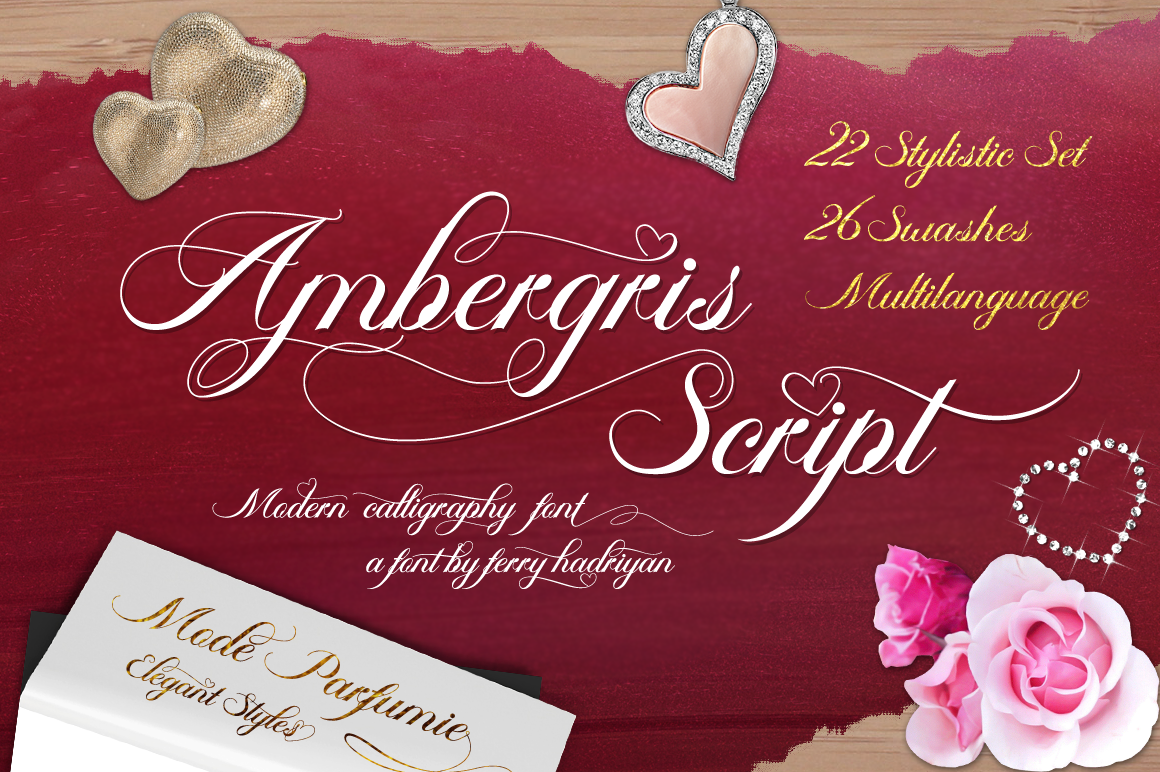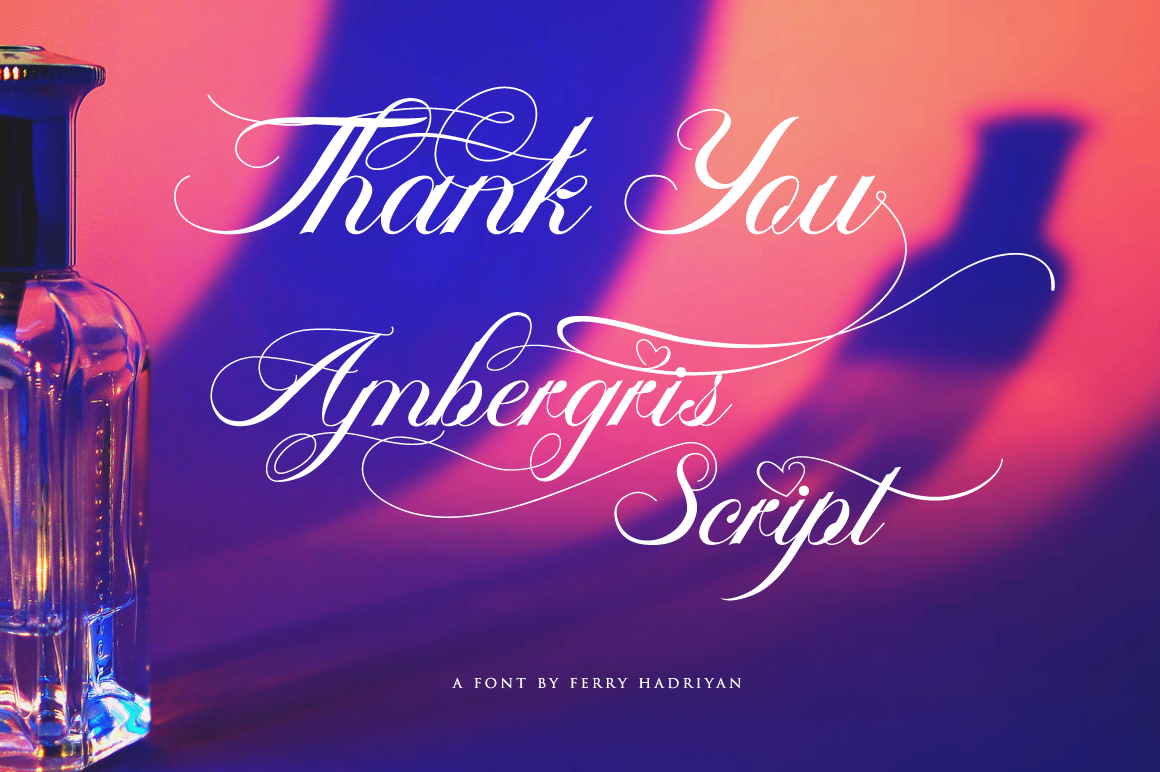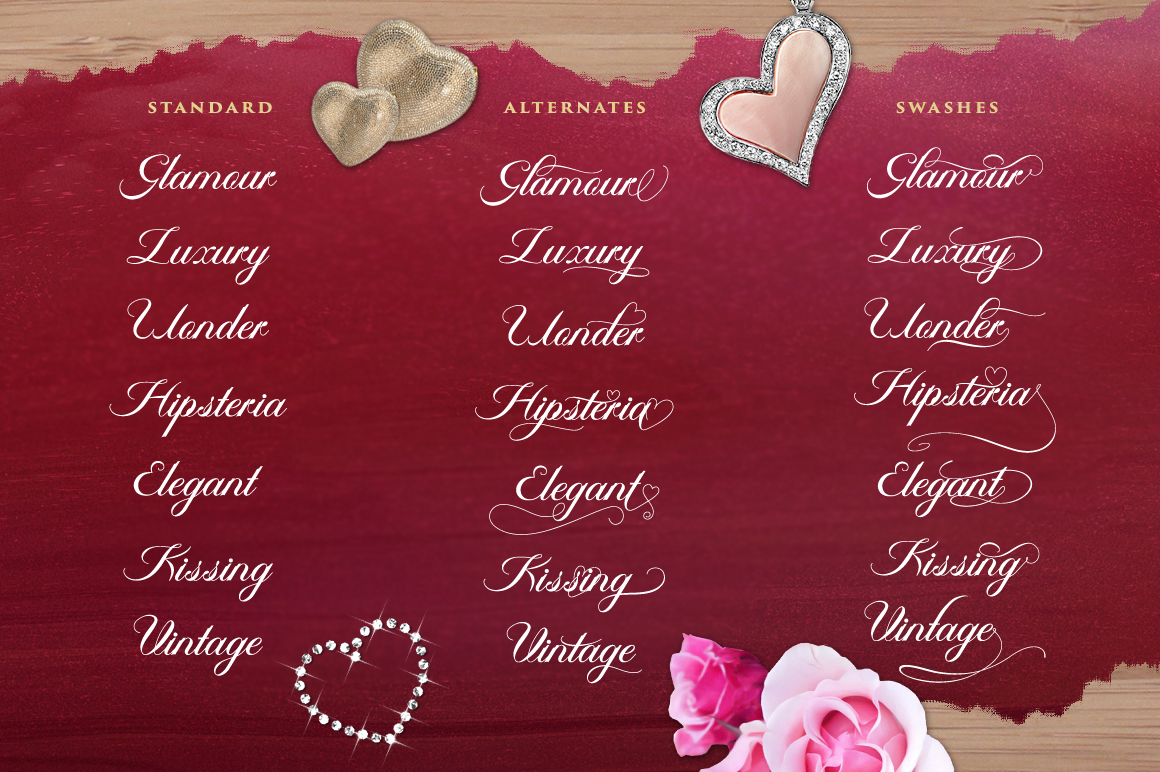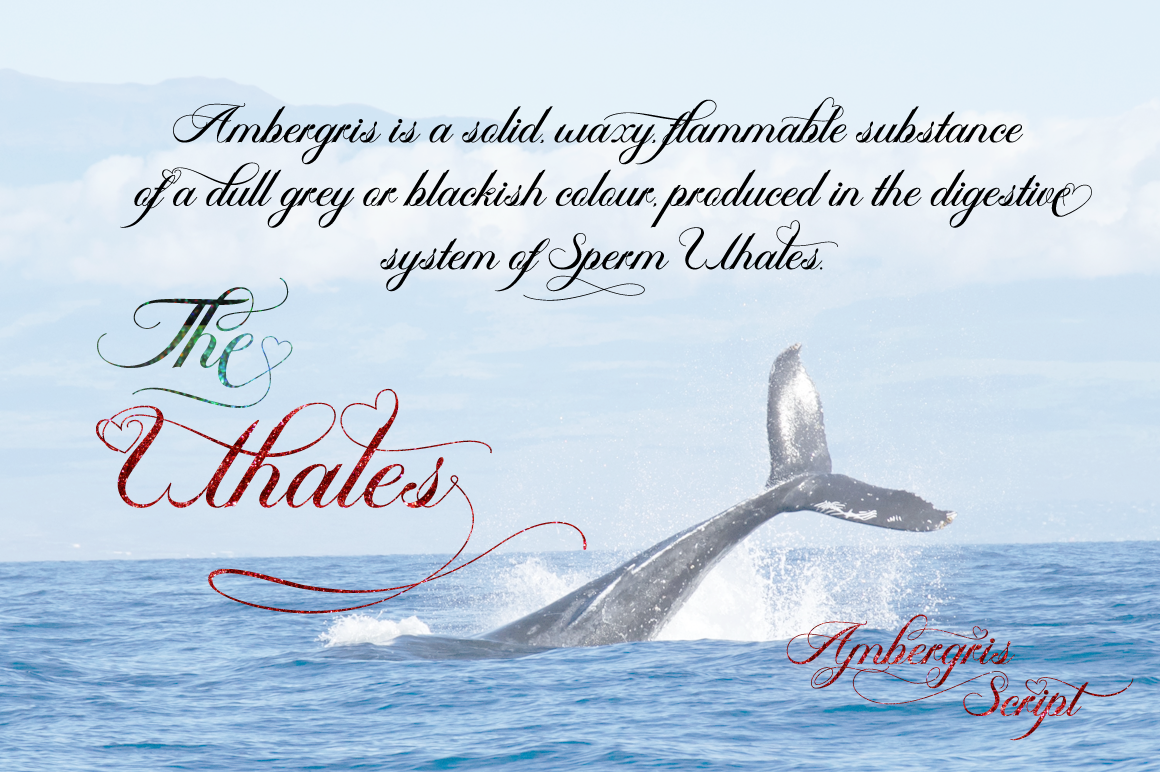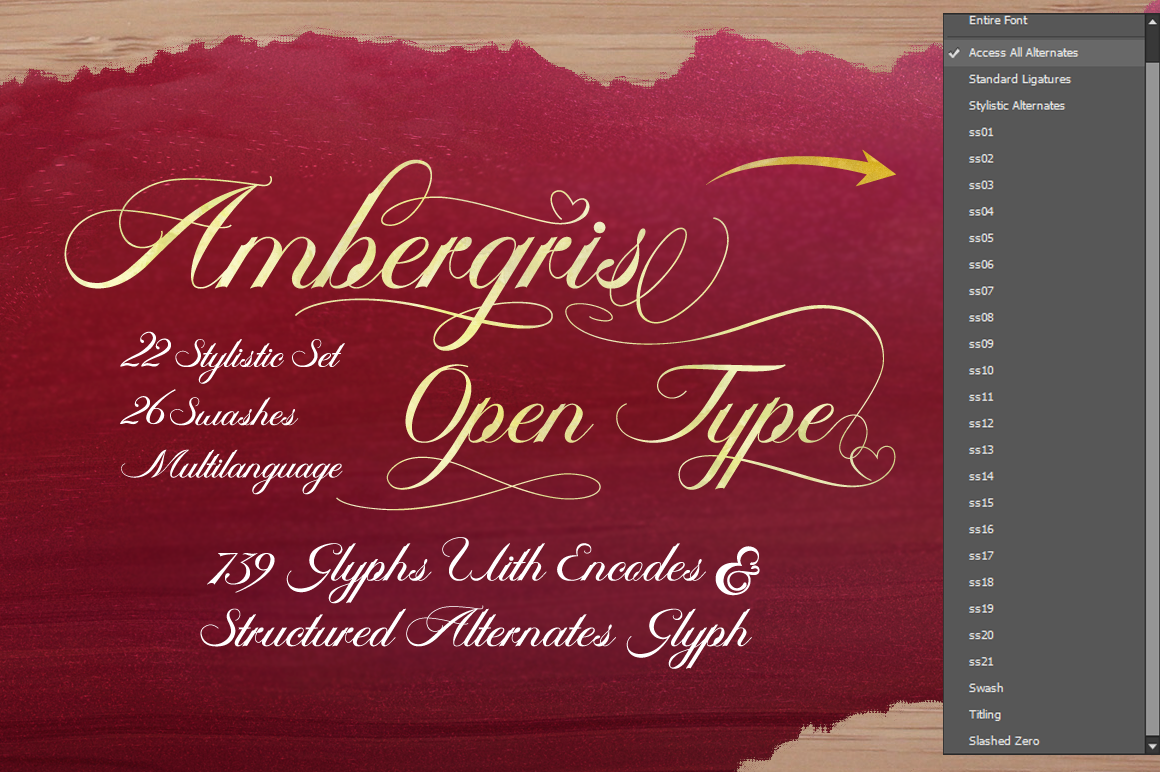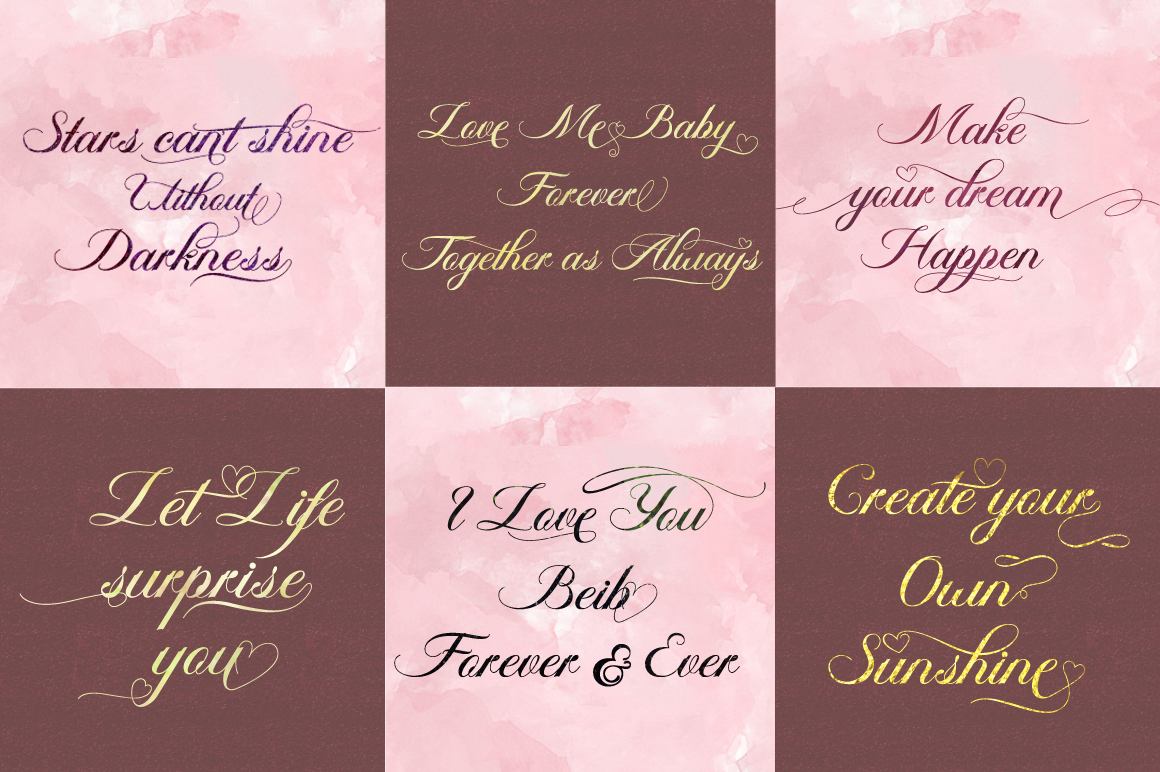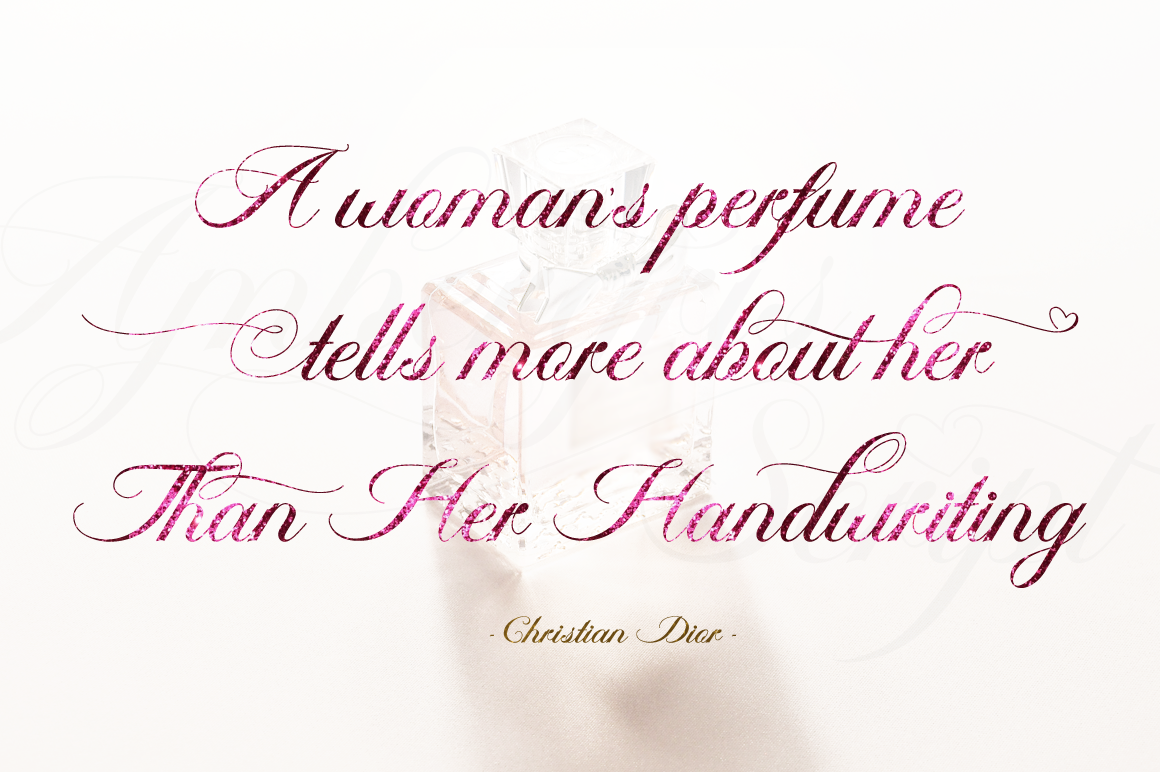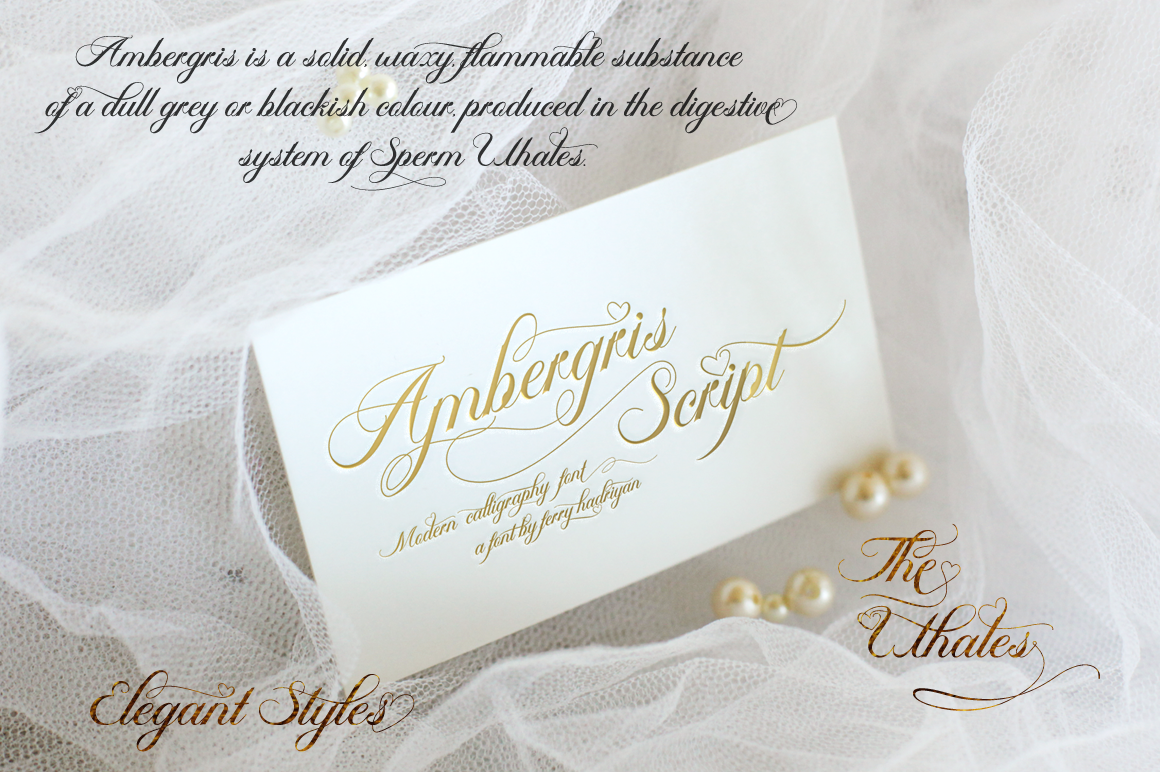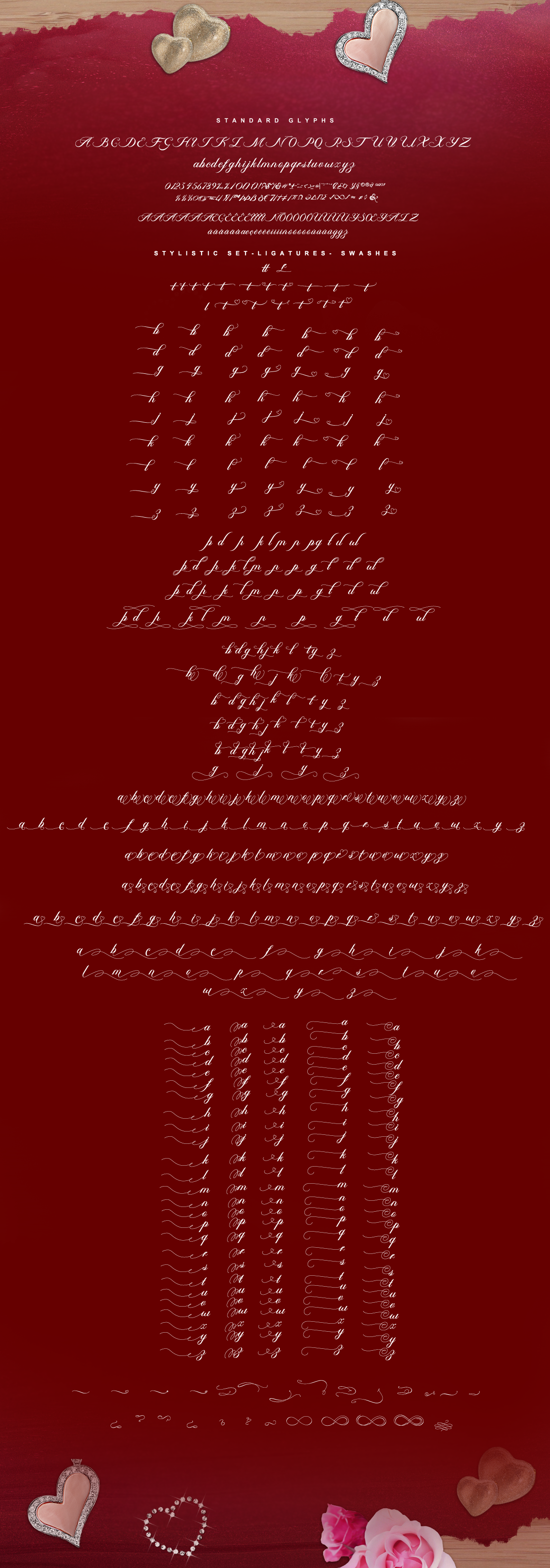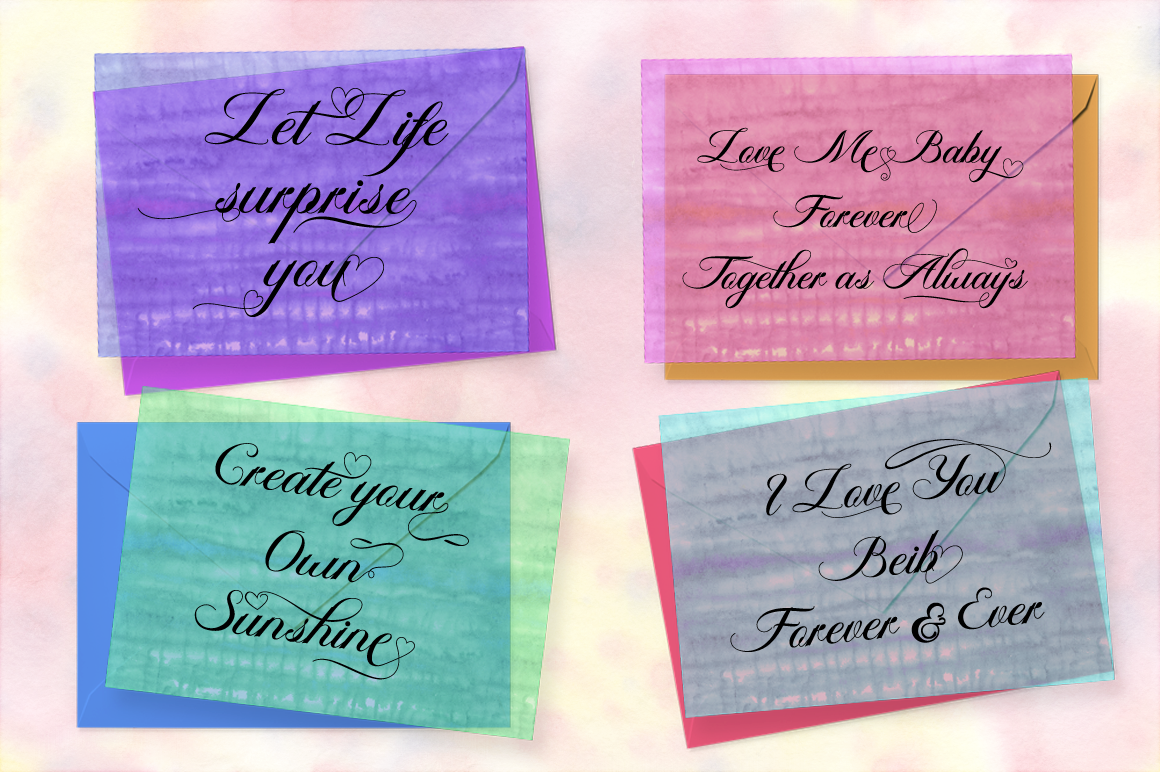
Ambergris Font
About Ambergris Font
Ambergris is a stunning and romantic script font, an elegant calligraphy style that can enhance a wide range of designs and projects. This font contains tons of swashes, ligatures, and alternate character styles so you can have the most unique and elegant typography imaginable!